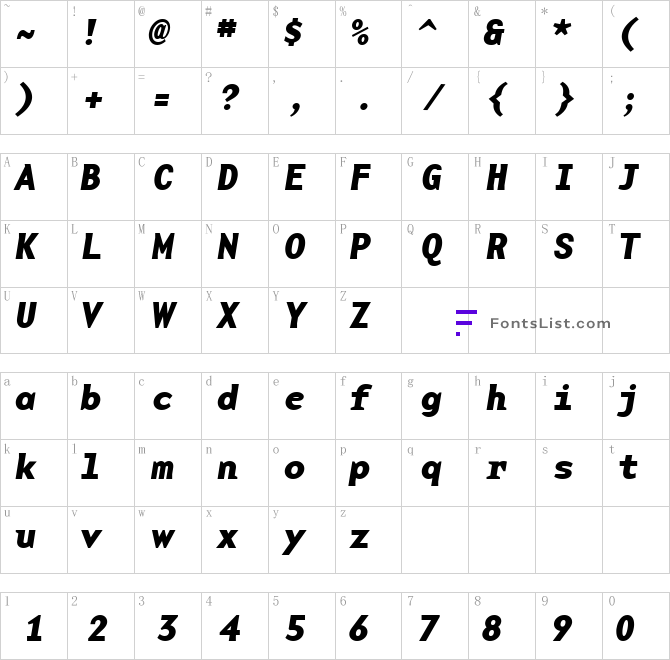
- Font Name:BaseMonoWideBoldItalic
- Subfamily:Altsys Fontographer 3.5 BaseMonoWideBoldItalic Bold Italic
- Full Name:BaseMonoWideBoldItalic Bold Italic
- PostScript:BaseMonoWideBoldItalic
BaseMonoWideBoldItalic-Bold-Italic.ttf is a very beautiful artistic font, BaseMonoWideBoldItalic-Bold-Italic.ttf is widely used in the design and printing of various books and pictures,BaseMonoWideBoldItalic-Bold-Italic.ttf has a strong visual impact,BaseMonoWideBoldItalic-Bold-Italic.ttf is a commonly used font in newspapers, magazines and books, and is used in posters, e-commerce Poster design, store design, logo design, font design and other fields.BaseMonoWideBoldItalic-Bold-Italic.